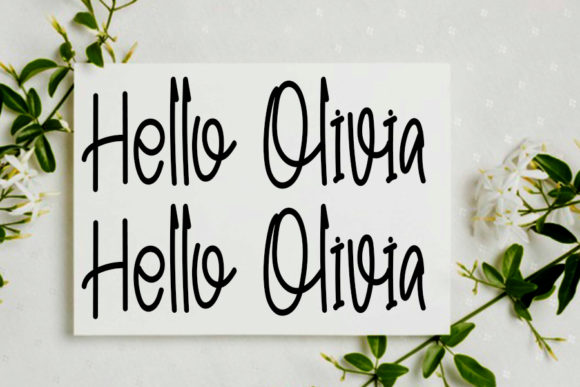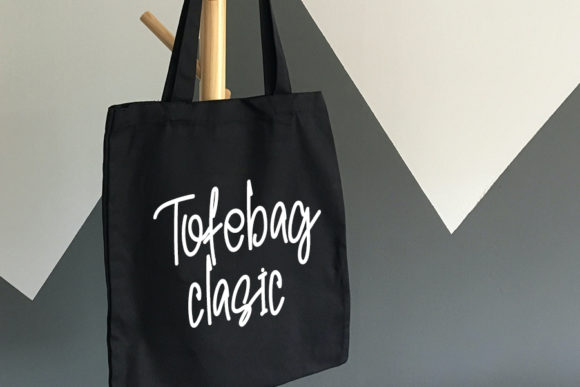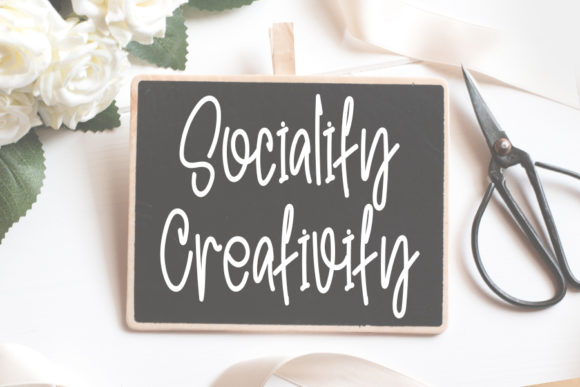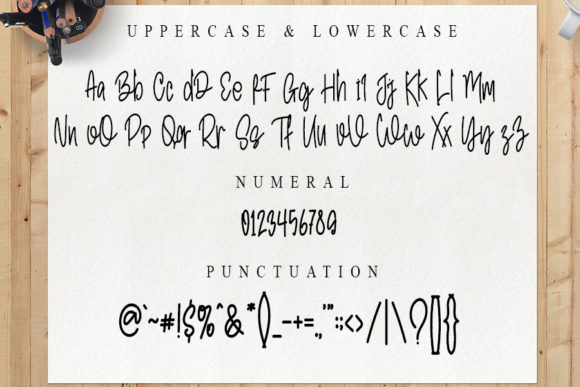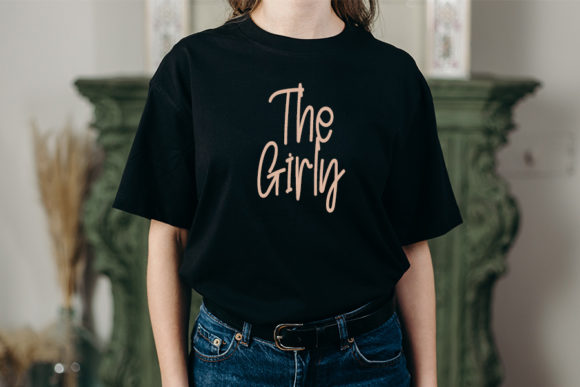
Unlock the Magic of Handwritten Fonts
Have you ever found yourself staring at a blank page, struggling to bring your creative ideas to life? The blank canvas can be intimidating, but it’s in these moments that we discover our most brilliant inspirations. For designers, the challenge lies not only in creating something visually stunning but also in conveying a message that resonates with the audience.
That’s where the Brilliant Signature Font comes in – a delicate, elegant, and flowing handwritten font that brings a touch of sophistication to any design. With its beautiful and well-balanced characters, it’s the perfect addition to a wide range of creative projects, from wedding invitations to editorial designs.
As a valuable tool for designers, the Brilliant Signature Font offers endless possibilities for self-expression and creativity. Whether you’re a seasoned pro or just starting out, this font is sure to elevate your designs and make them truly unforgettable.
Brilliant Signature Font Key Features
- Font Family: Brilliant Signature Font
- Unique Characteristics: Handwritten style with a touch of elegance, perfect for creating personalized signatures, logos, and other graphical elements
Designer Review: Brilliant Signature Font
Overall, I think the Brilliant Signature Font has some great qualities that make it suitable for personal branding and signature purposes. ✨ The font’s elegant and modern design is sure to make a statement, and its versatility makes it suitable for a wide range of applications.
- ✨ Elegant and modern design
- ✨ Versatile and suitable for various applications
- ✨ Includes a range of font styles and sizes to suit different needs
- ⚠️ Limited font customization options
- ⚠️ May not be suitable for large-scale or professional printing
- ⚠️ Some users may find the font too flashy or over-the-top
Overall, I would give the Brilliant Signature Font 4 out of 5 stars. While it has some limitations, it’s a great option for personal branding and signature purposes. With a little creativity, it can be used to create a truly unique and eye-catching design.
Business cards and letterheads
Signature and logo designs
Branding and marketing materials